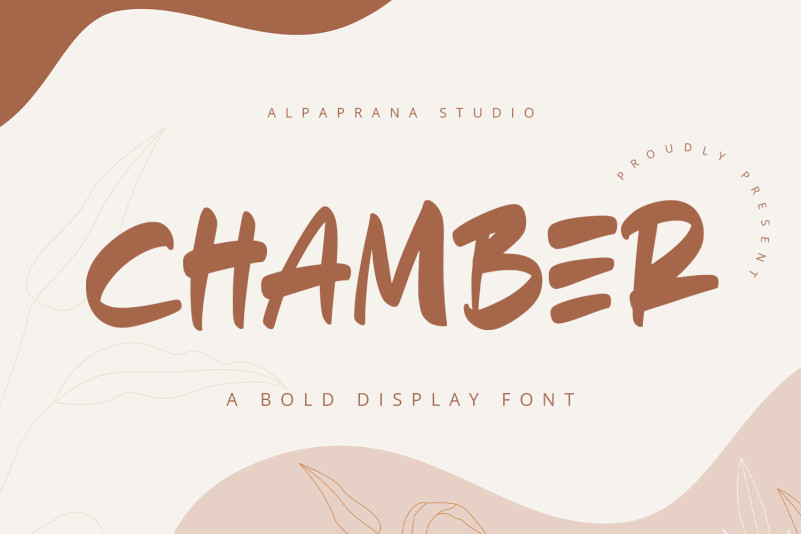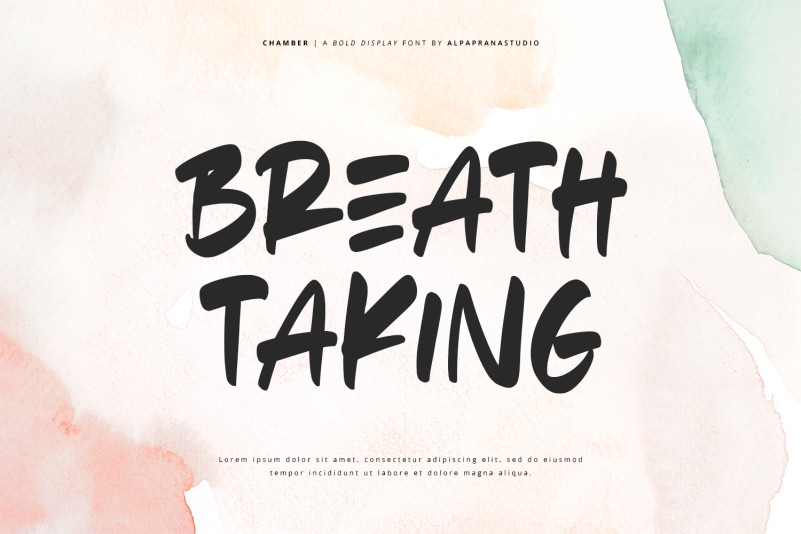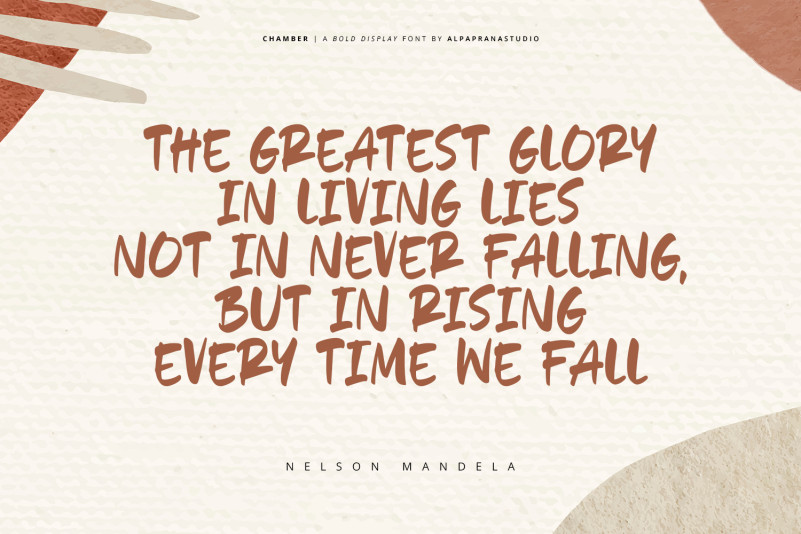
Chamber Font
Chamber Font is a bold display font with natural and modern feels. It will be perfectly used for Branding, Logo Design, Lettering, Logotype, Clothing, Poster, magazine, packaging, posters, shopping bags, t-shirts, book covers, photography, special events and other design project.